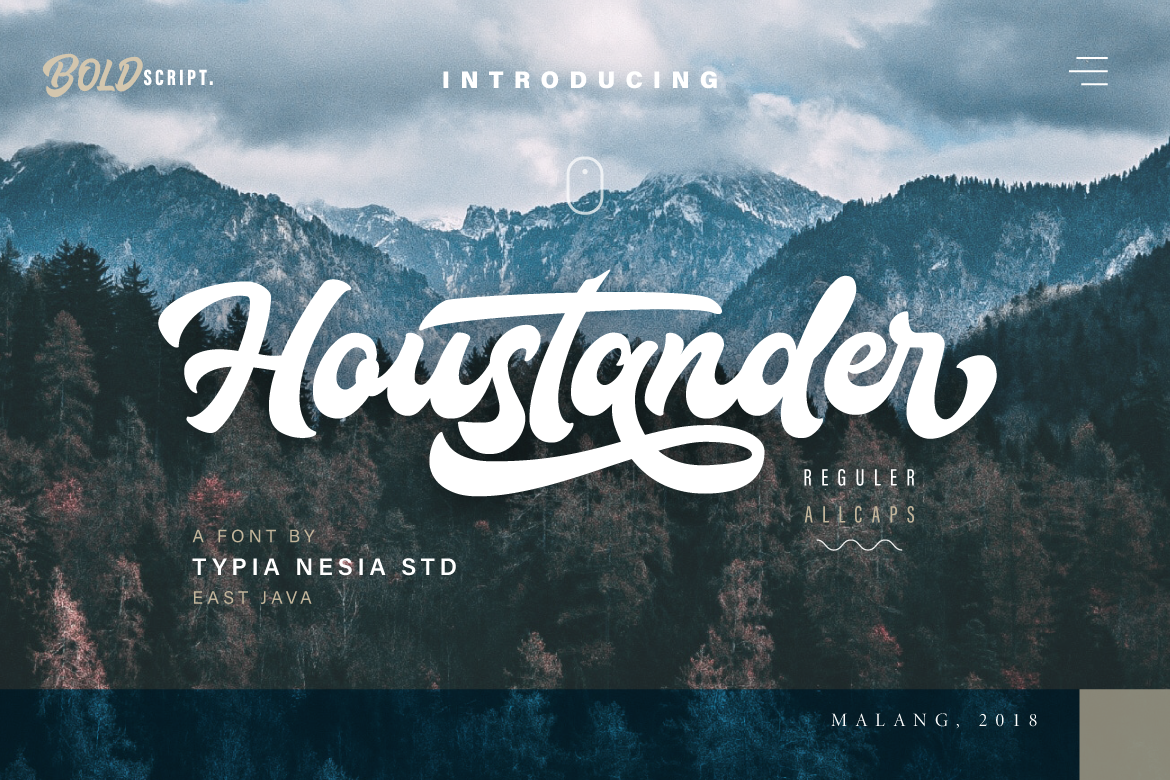
Houstander font duo is an excellent font for modern hand lettering logo or headline / display designs. Suitable for any design needs : logo, branding, modern advertising design, logos, poster quote, book / cover Title, editorial design, website / blog, card, custom mug, pillow, t-shirts, and any hand-lettered needs.
Houstander Swashes
Houstander Allcaps
Houstander Reguler